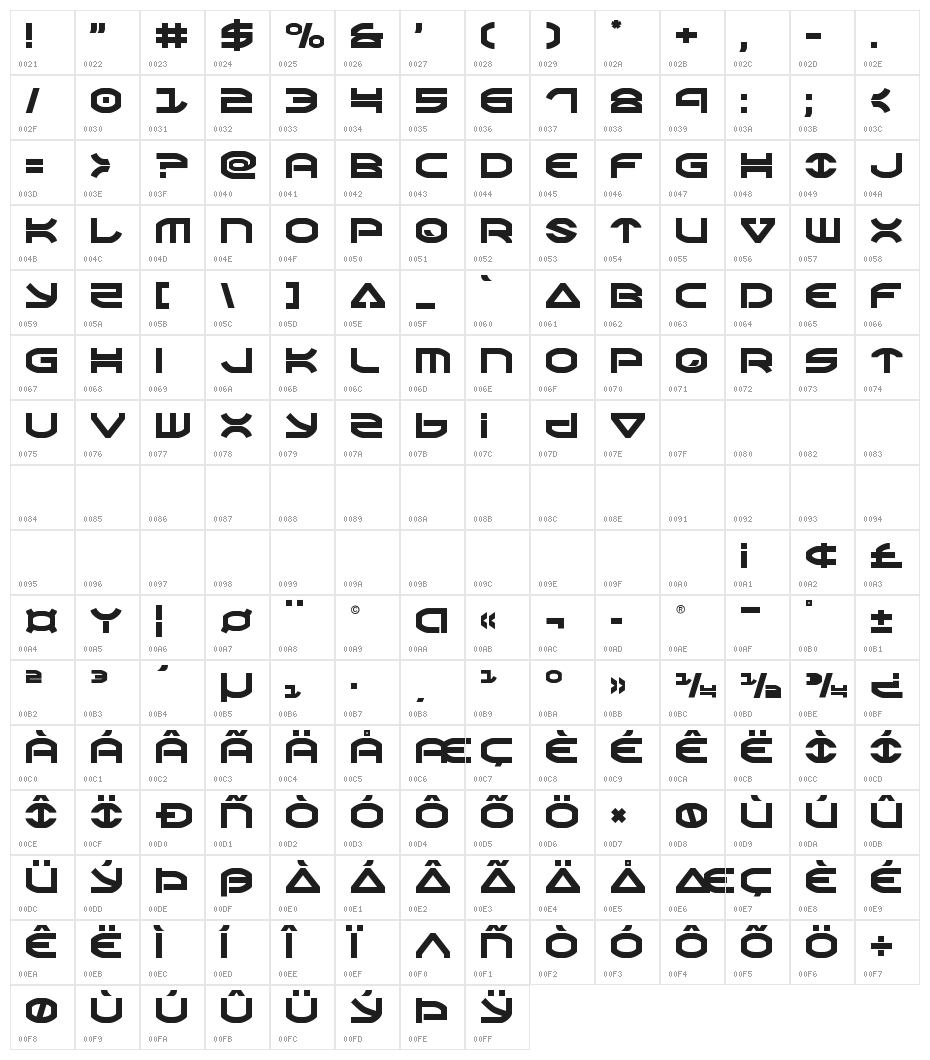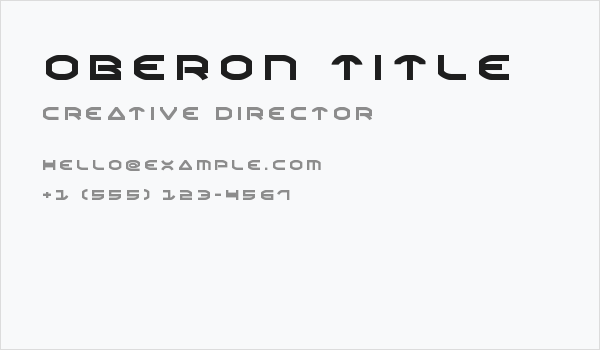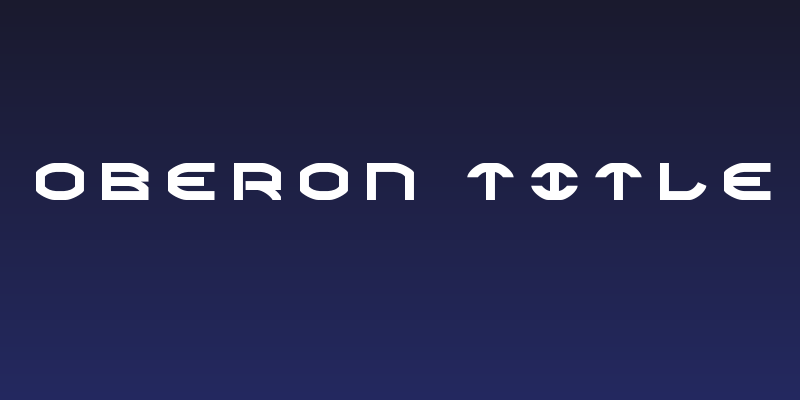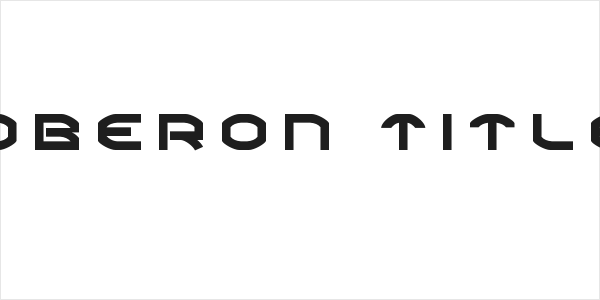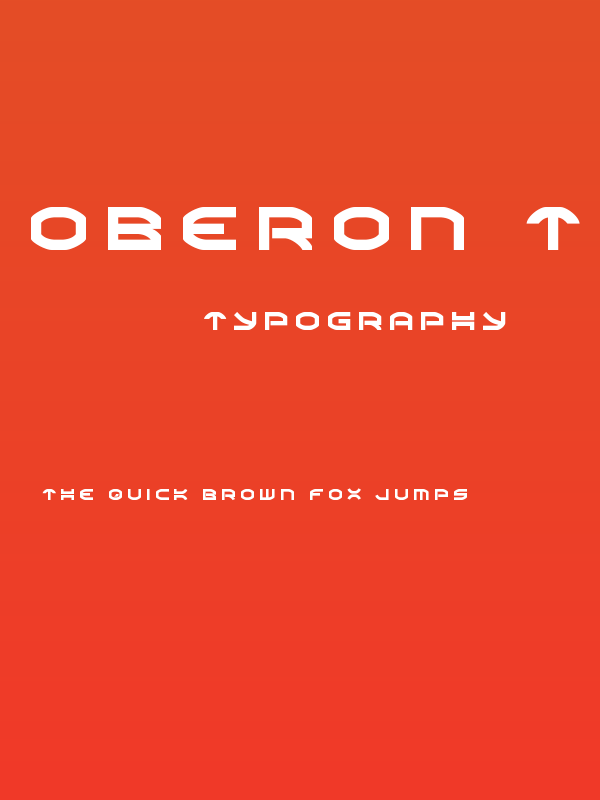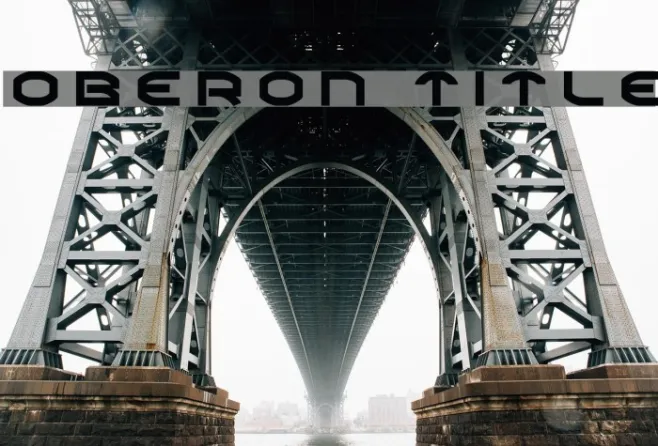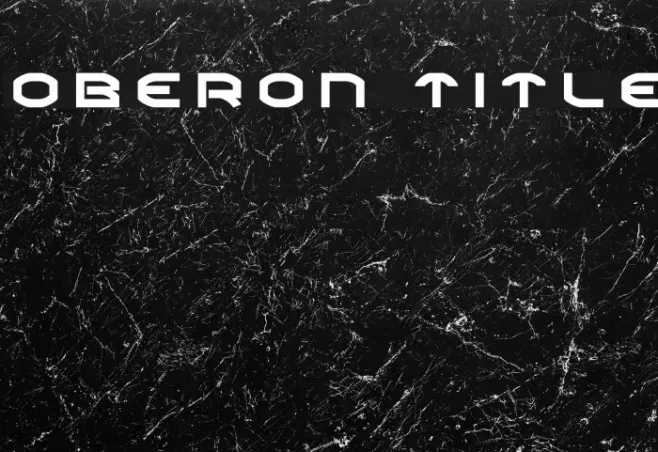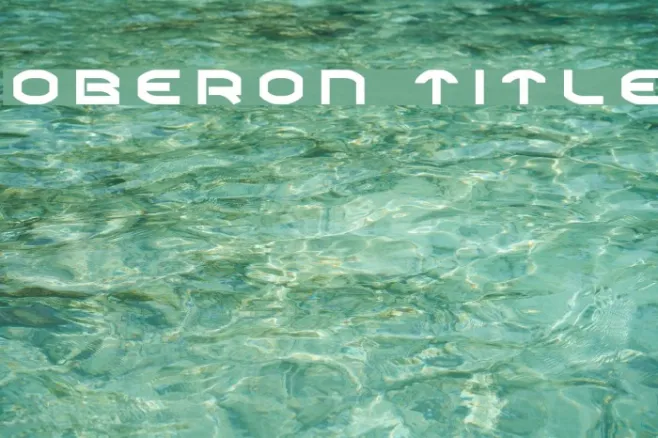
Oberon Title Font
Oberon Title Description
This font features a futuristic and geometric design, characterized by its bold and angular letterforms. The uppercase letters exhibit a unique blend of sharp edges and rounded elements, creating a visually striking appearance. The lowercase letters maintain a consistent style, complementing the uppercase with their distinct shapes. Numbers and special characters follow the same design principles, ensuring uniformity across all glyphs. The font's modern aesthetic makes it suitable for projects that require a contemporary and edgy look.
| Proposed Projects | Ideal for sci-fi themed designs, technology branding, video game titles, and modern posters. |